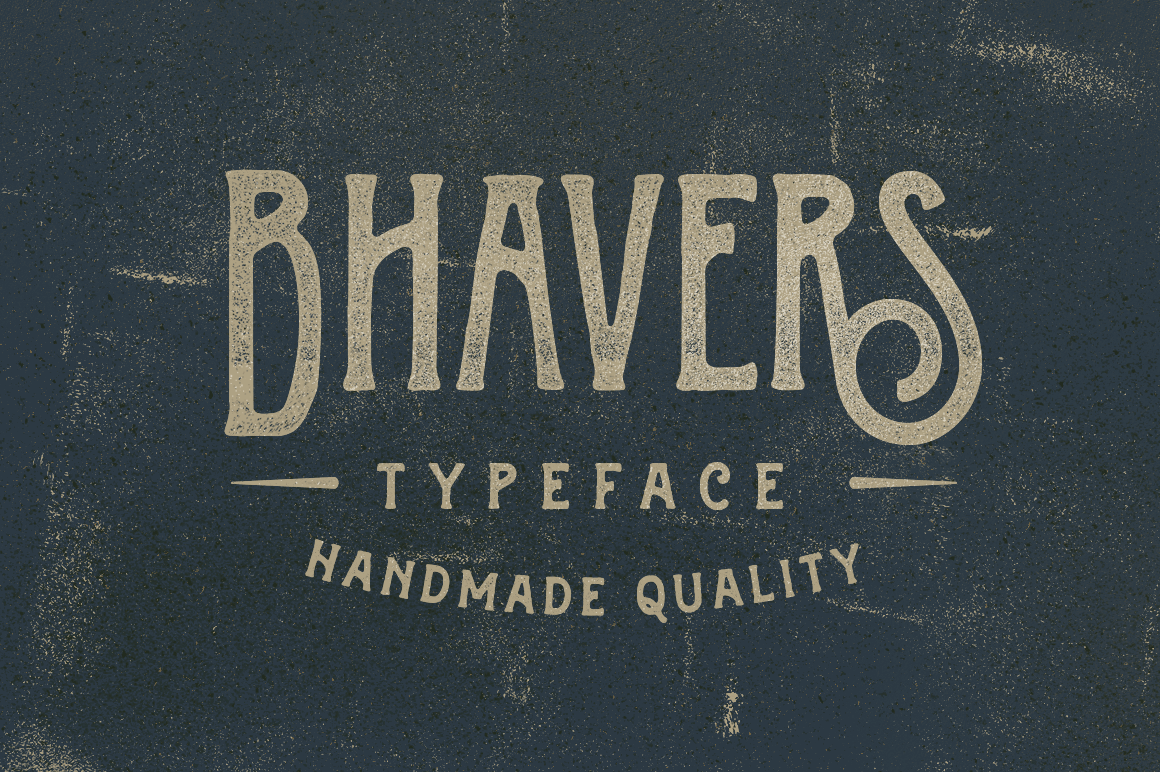
Bhavers Typeface
Introducing new handmade typeface it's call Bhavers, This is condensed version of the Handters typeface, and as always this is handdraw style it can makes your work more stylish. OpenType features with Stylistic Alternates, Contextual Alternate and Discretionry alternate in some characters that allows you to mix and match pairs of letters to fit your design. Plus BONUS Bhavers Badges with editable text. With this font you can create good vintage design, t-shirt, logo, labels, posters , badges and etc.